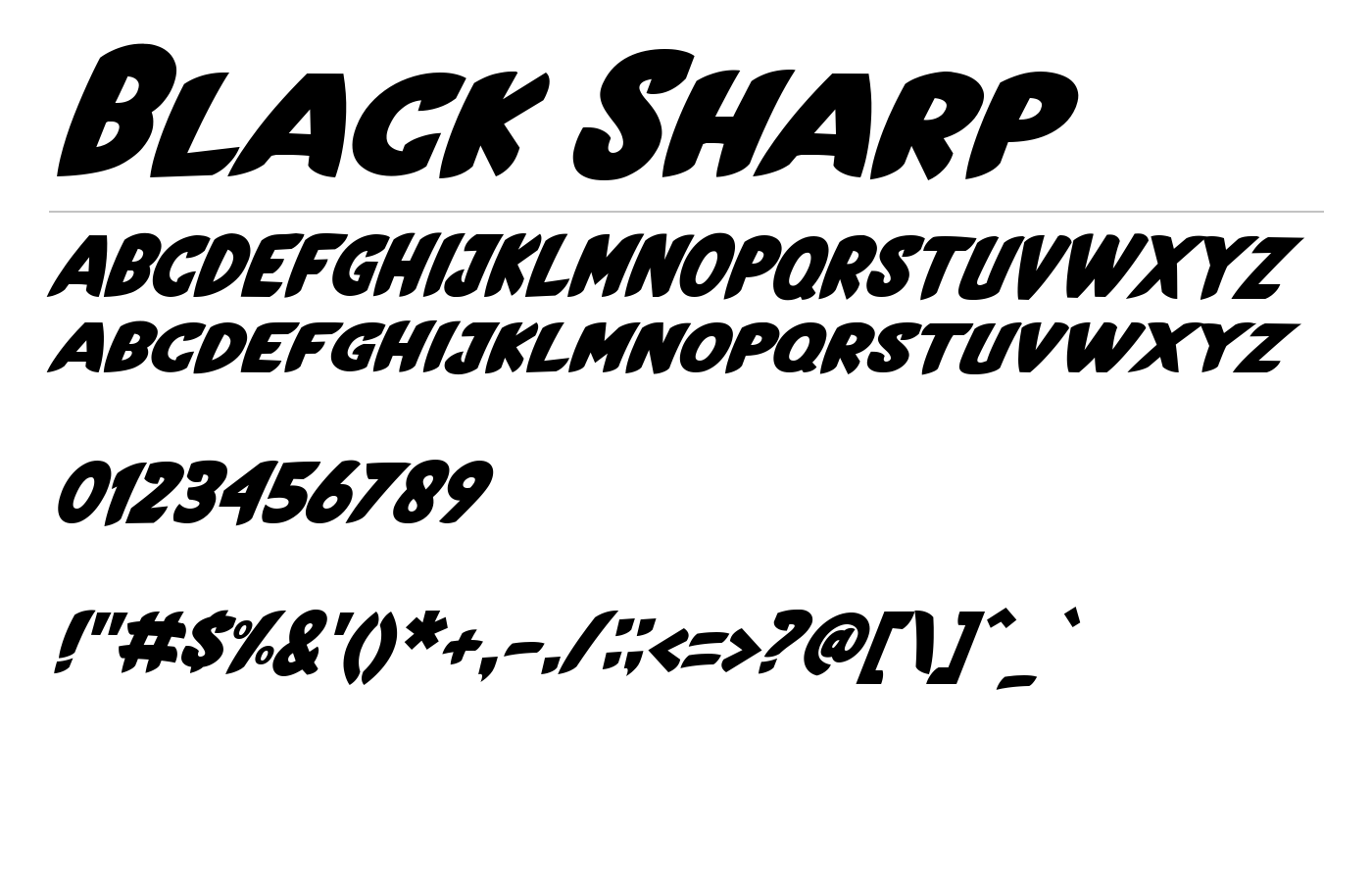
Black Sharp is a bold, condensed sans serif font with a dynamic italic slant, featuring thick, smooth strokes and sharp, angular terminals that give it an energetic and modern look. Its uppercase-only style and strong presence make it perfect for attention-grabbing headlines, logos, and branding where impact and style are key. This font works well in vibrant, playful, or sporty contexts, conveying confidence and movement.
Black Sharp Font
About Black Sharp Font
| Font family | Black Sharp Font |
| Trademark | Trademark Black Sharp by Blankids STudia |